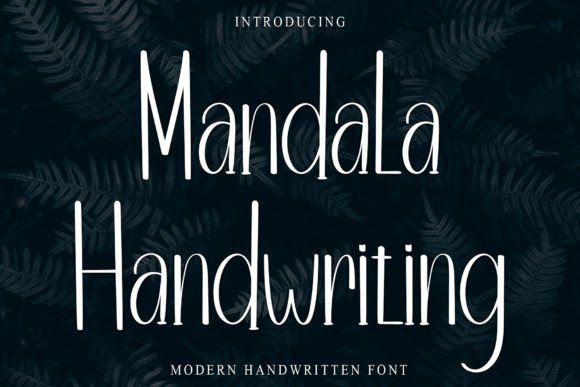
Welcome, discerning designers and font enthusiasts, to the realm of Mandala Handwriting Font, a script font family that transcends the ordinary and elevates your creative visions to new heights. This masterpiece, crafted by the skilled artisans of Inermedia STUDIO, is not merely a collection of letters, but an artistic expression that breathes life into your designs, leaving an unforgettable mark on your audience.
Immerse yourself in the intricate details of Mandala Handwriting Font, where each stroke and curve is meticulously crafted to evoke a sense of timeless elegance and contemporary flair. The harmonious balance of thick and thin lines creates a visual symphony, while the carefully kerned characters ensure effortless readability and unparalleled aesthetics.
With Mandala Handwriting Font, your logos will transcend the mundane and enter the realm of the extraordinary. Its inherent visual appeal commands attention, captivating your audience with its effortless sophistication. Whether you seek to create a timeless emblem for a luxury brand or a vibrant, eye-catching mark for a dynamic startup, Mandala Handwriting Font will effortlessly elevate your designs, leaving a lasting impression that resonates with your target market.
Beyond logos, Mandala Handwriting Font opens up a world of creative possibilities. Its versatility knows no bounds, seamlessly adapting to a symphony of design applications. Craft stunning wedding invitations that exude romance and elegance, create captivating social media graphics that demand attention, or design breathtaking posters that ignite the imagination. Mandala Handwriting Font is your creative ally, empowering you to manifest your artistic vision with unparalleled finesse.
Embrace Mandala Handwriting Font and embark on a creative journey where your designs transcend the ordinary and blossom into masterpieces. Experience the transformative power of typography as your creations captivate audiences and leave an indelible mark on the world.